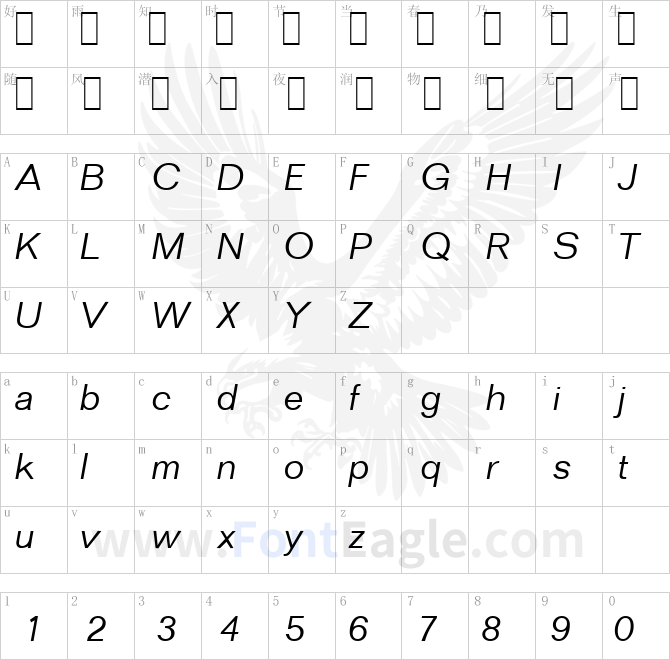
- Font name:Focus-Light
- Font Subfamily ID:SoftMaker Software GmbH Focus-Light-Italic
- Font Full Name:Focus-Light-Italic
- Postscript:FocusLightItalic